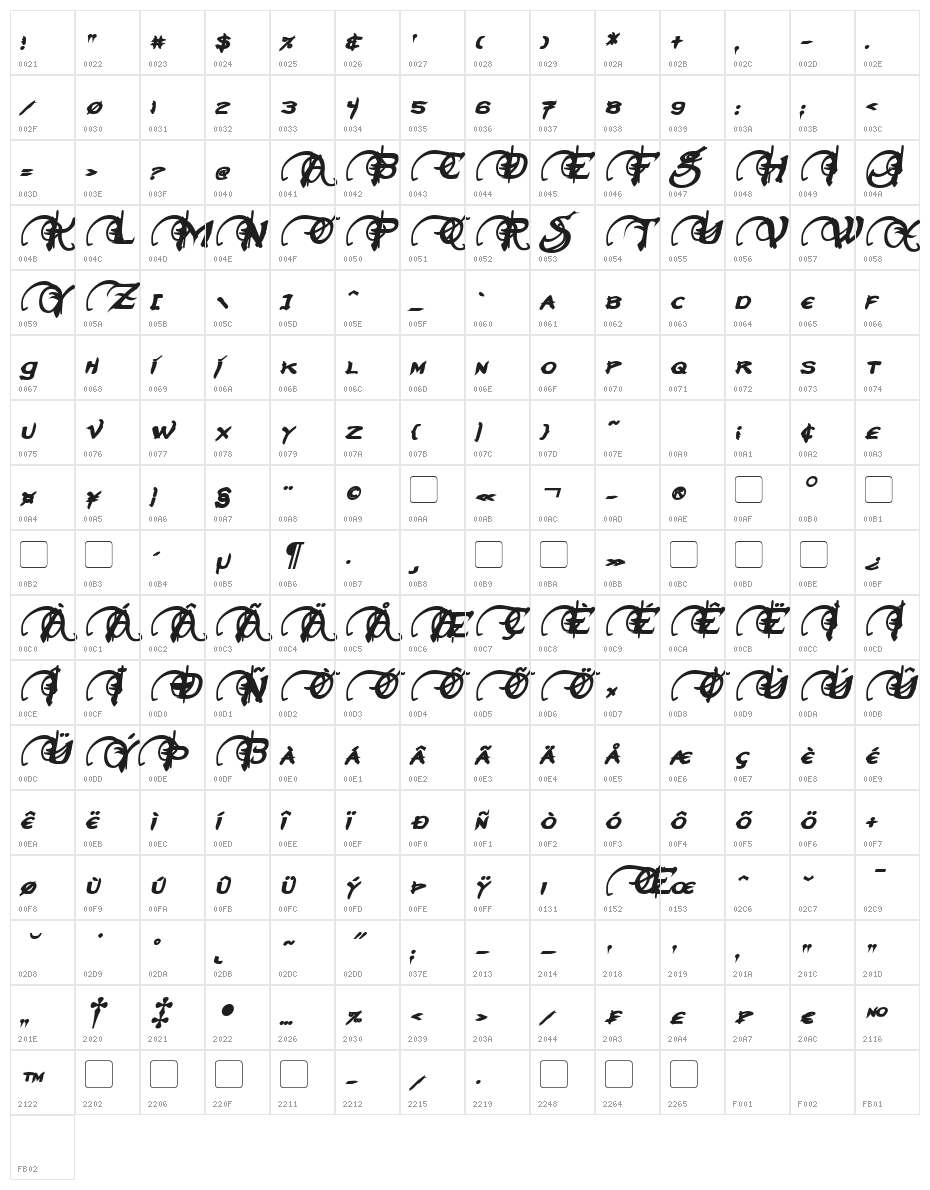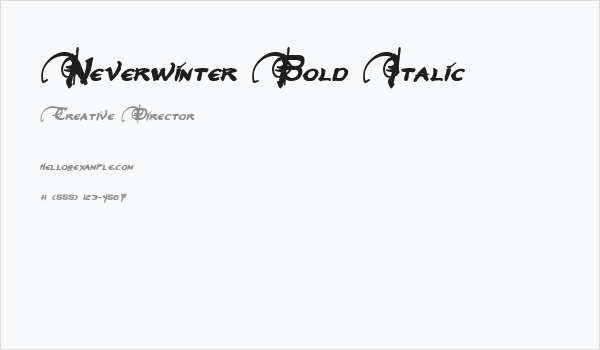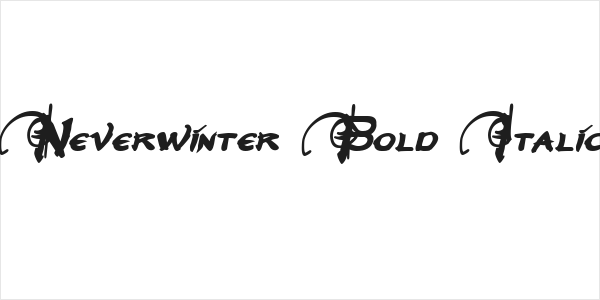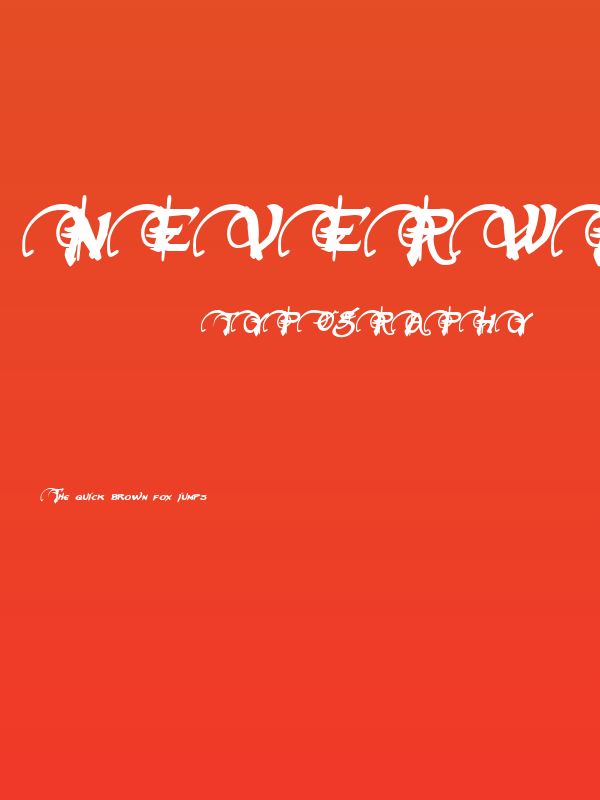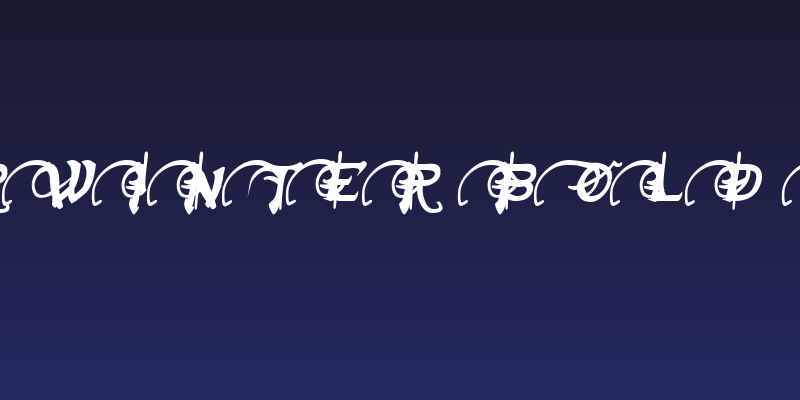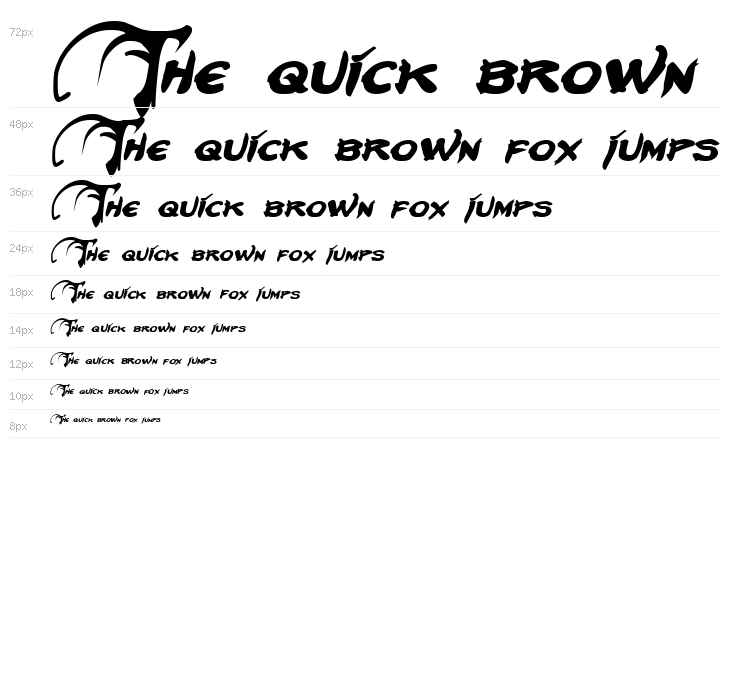
Neverwinter Bold Italic Font
Neverwinter Bold Italic Description
This font features a bold and italicized style with a dramatic flair, characterized by its sharp, angular strokes and dynamic curves. The uppercase letters are particularly striking, with a sense of movement and energy that makes them stand out. The lowercase letters maintain this boldness while offering a slightly more subdued appearance. The numbers and special characters are consistent with the overall style, providing a cohesive look across all elements. This font's unique design is both eye-catching and memorable, making it suitable for a variety of creative applications.
Proposed ProjectsIdeal for fantasy-themed projects, game titles, posters, and logos that require a dramatic and bold appearance.